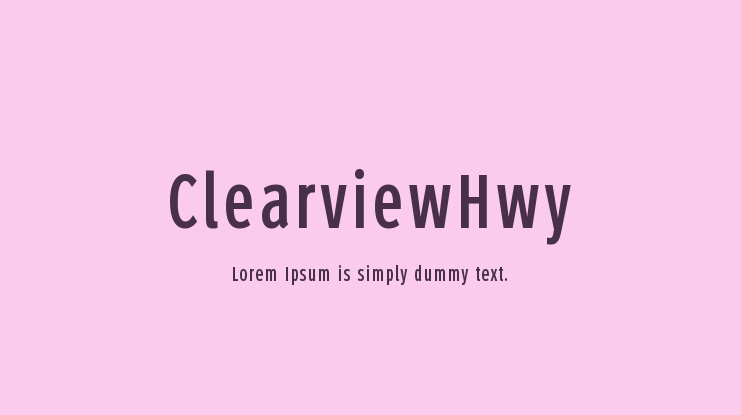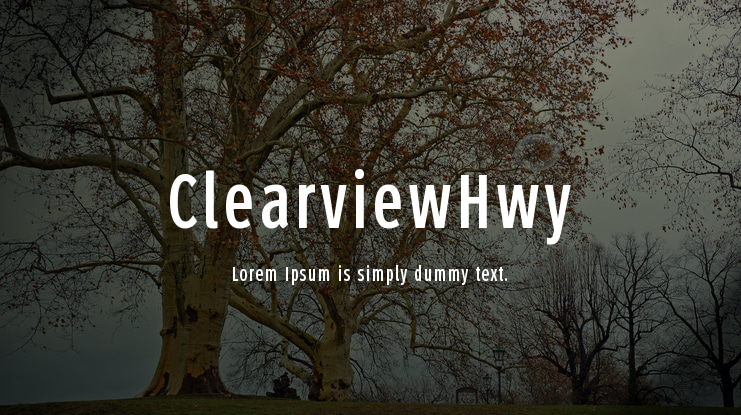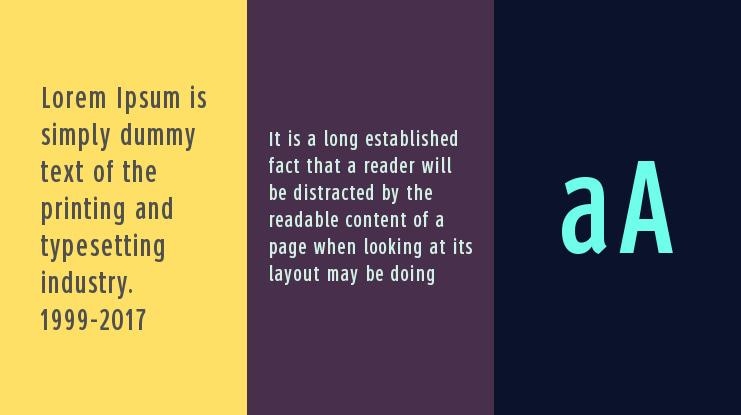
ClearviewHwy Font Family
James Montalbano, Donald Meeker, Chris O'Hara
Clearview, also known as Clearview Hwy, is the name of a humanist sans-serif typeface family for guide signs on roads in the United States. It has also been used in Canada, Indonesia, the Philippines, Israel, and Sri Lanka. It was developed by independent researchers with the help of the Texas Transportation Institute and the Pennsylvania Transportation Institute, under the supervision of the Federal Highway Administration (FHWA). It was once expected to replace the FHWA typefaces in many applications, although newer studies of its effectiveness have called its benefits into question.
Based on extensive human factors research, ClearviewHwy was designed to reduce the halation experienced by older drivers with increased contrast sensitivity, when reading road signs at night, while increasing legibility and recognition of the sign displays. The results of this project were significant, with various tests showing ClearviewHwy to be between 12% and 29% more legible and easier to read than the current font used on highway signs. In 2004 the U.S. Federal Highway Administration granted the design Interim Approval for use on all Federal roads.